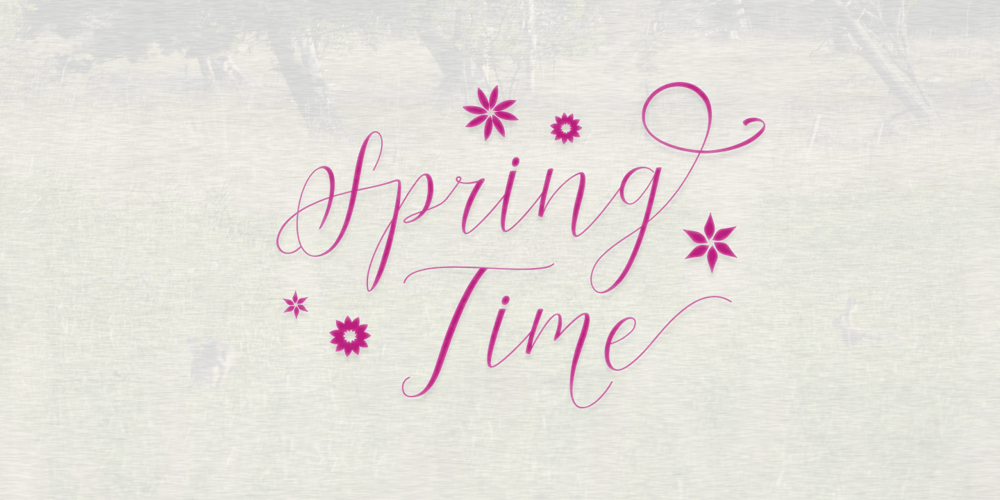
Cantona Script
Cantona Script font
Cantona Script Font Family was designed by Måns Grebäck and published by Mans Greback. Cantona Script contains 1 styles and family package options. Cantona Script is a beautiful, swirly script typeface. With its hundreds of decorative alternates, this font is perfect for a swashy logo or headline. It contains ligatures, and has support for all Latin based European languages.